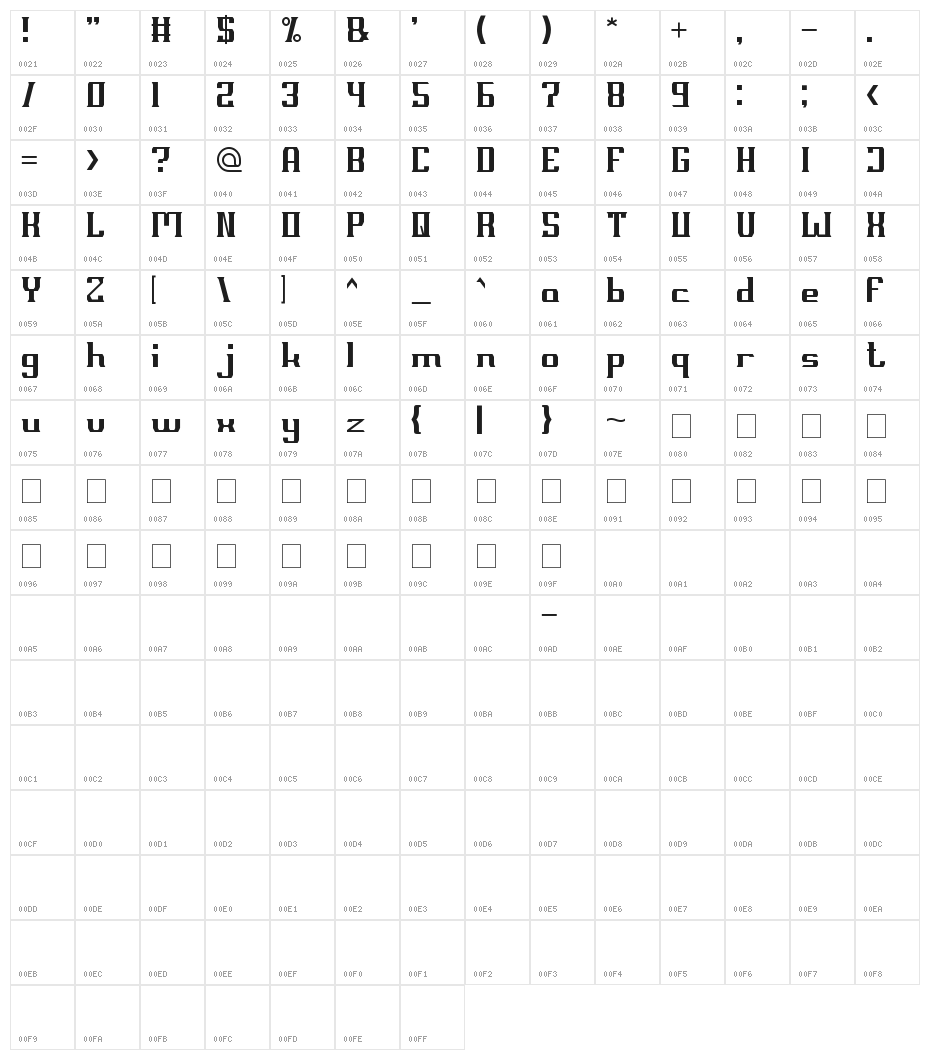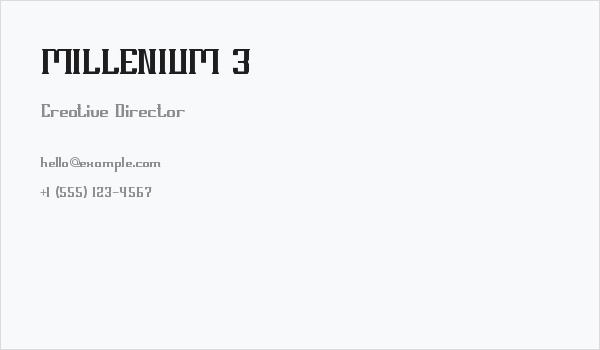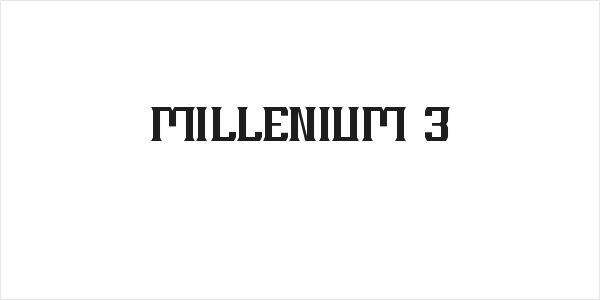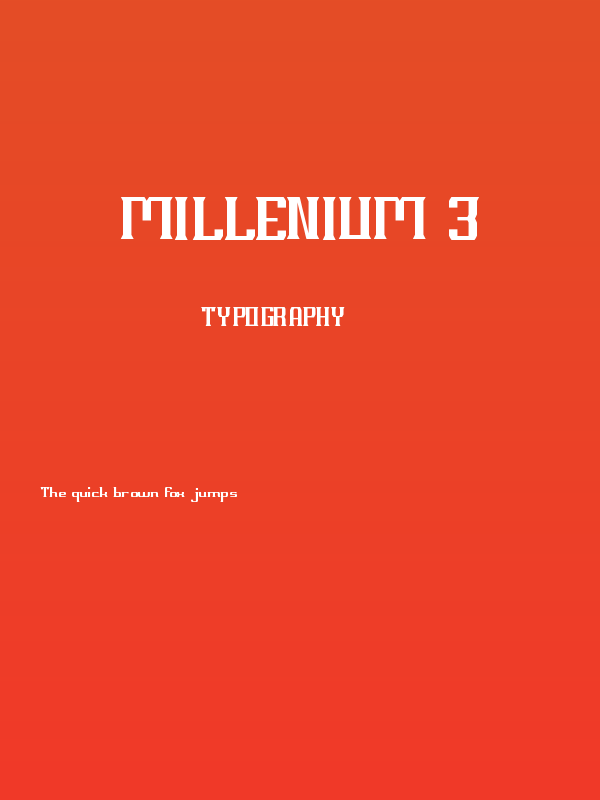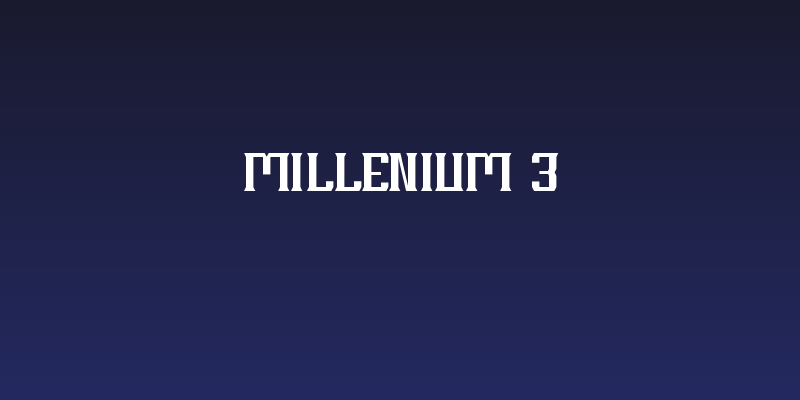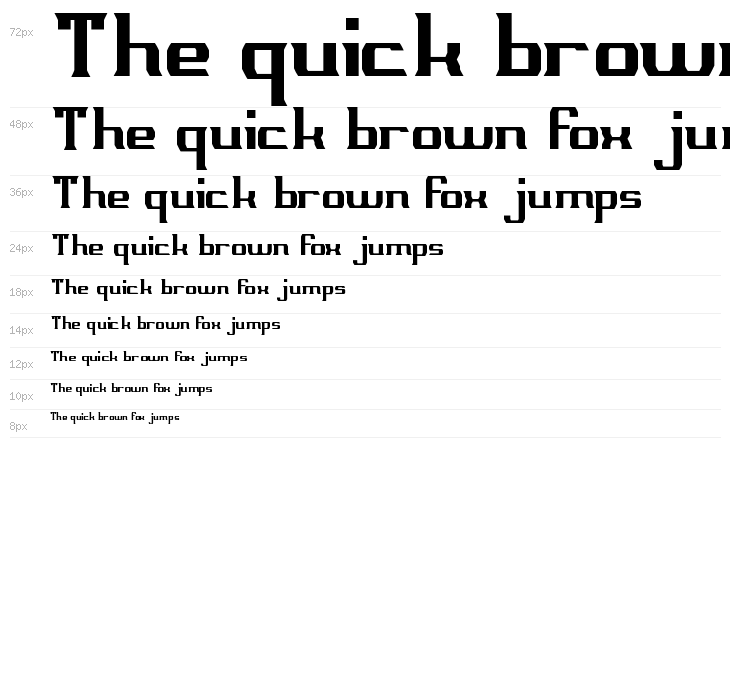
MILLENIUM 3 Font
MILLENIUM 3 Description
This font features a bold and geometric design with sharp angles and a futuristic aesthetic. The uppercase letters are distinct with their blocky and angular shapes, while the lowercase letters maintain a consistent style, offering a cohesive look. The numbers and special characters follow the same design principles, ensuring uniformity across all glyphs. The font's unique style makes it stand out, ideal for projects that require a modern and edgy appearance. Its strong presence and high readability make it suitable for various design applications.
| Proposed Projects | Ideal for sci-fi themed posters, video game graphics, technology branding, and modern logos. |